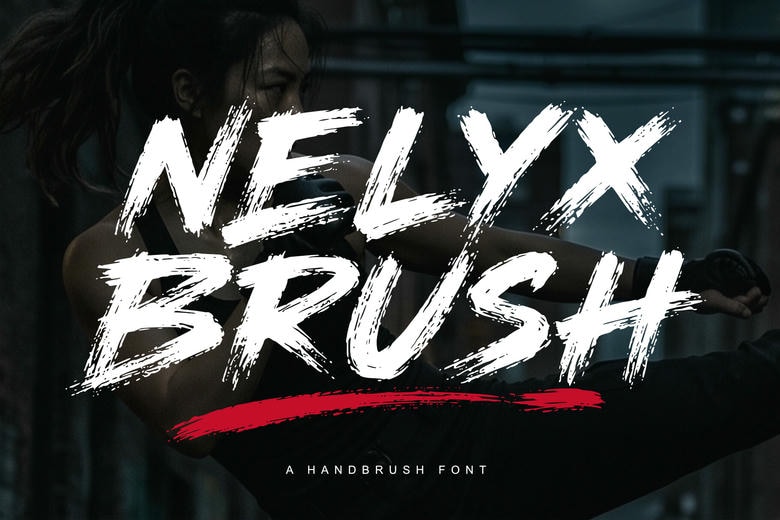
Nelyx Brush Font
Nelyx Brush is a bold handbrush typeface that brings raw energy and personality to your designs. Each letter has dynamic strokes and rough textures, so it looks like real brushwork.
Nelyx Brush is great for projects that need a bold visual statement. It mixes a modern urban style with a handmade touch. The uneven edges and natural flow give it a sense of speed and intensity.